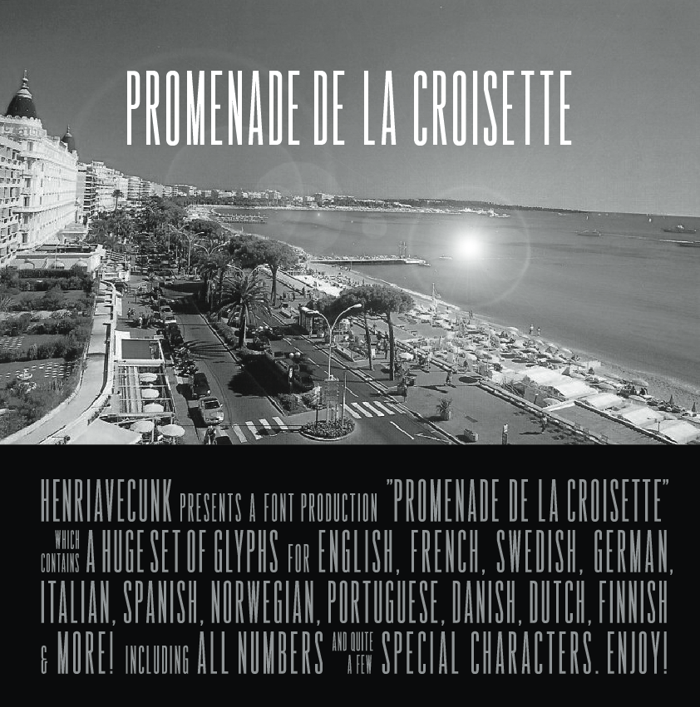
Promenade de la Croisette Font
Promenade de la Croisette est grand et fier police pour les annonces haute couture , les crédits d'affiche du film et tout ce qui a besoin d'un peu de style.
Promenade de la Croisette is a tall and proud typeface. This font is suitable haute couture ads, movie poster credits and anything else that needs a bit of style.